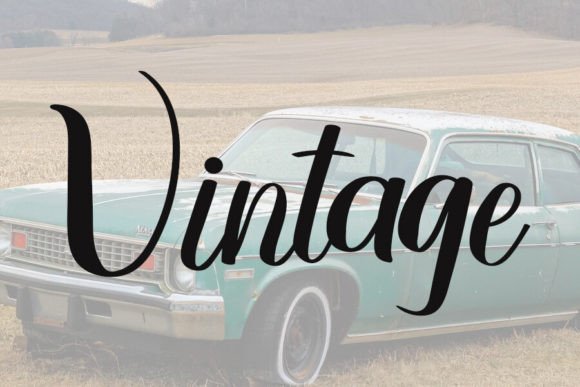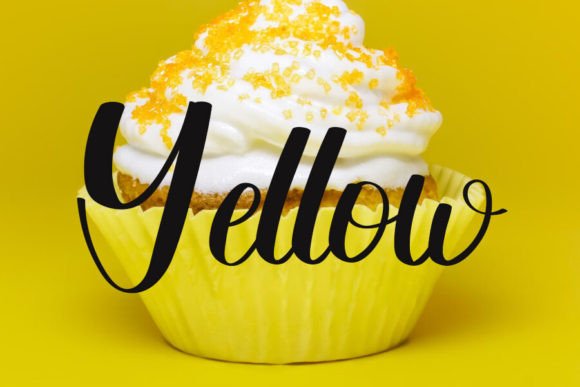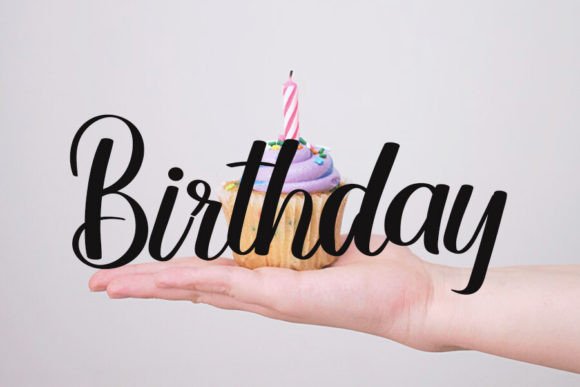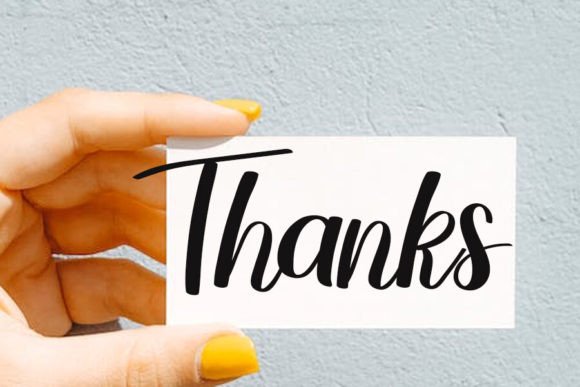
Introducing Cramble Font: Elevate Your Designs with a Fresh and Beautiful Typeface
In the world of design, the right font can make all the difference. It can elevate your project from ordinary to extraordinary, convey the perfect tone, and leave a lasting impression on your audience. If you’re a designer, crafter, or business owner looking for a font that can help you stand out, look no further than Cramble Font. This fresh and beautiful font is perfect for a wide range of design purposes, from YouTube banners and cover logo mockups to wedding invitations, ID cards, flyers, and crafts.
What Makes Cramble Font Special?
Cramble Font is a simple yet unique typeface that is sure to capture the attention of your audience. Its clean lines, elegant curves, and balanced proportions make it a versatile font that can be used in a variety of contexts. Whether you’re designing a logo, creating a social media graphic, or crafting a wedding invitation, Cramble Font is the perfect choice. Its beauty lies in its simplicity, making it easy to read and understand, even at small sizes.
Why Choose Cramble Font for Your Designs?
There are many reasons why Cramble Font stands out from the crowd. Here are just a few:
- Fresh and Beautiful Design: Cramble Font has a modern and elegant design that will give your projects a professional and polished look.
- Versatile: This font can be used for a wide range of design purposes, from digital graphics to print materials.
- Simple and Unique: Cramble Font’s simplicity makes it easy to read and understand, while its uniqueness sets it apart from more common fonts.
Cramble Font is a dream come true for designers and crafters. Its versatility and beauty make it perfect for a wide range of projects, including:
- YouTube Banners: Create eye-catching banners that showcase your brand’s personality and style.
- Cover Logo Mockups: Design stunning logo mockups that will help your clients visualize their brand’s identity.
- Wedding Invitations: Create beautiful and elegant wedding invitations that set the tone for the big day.
- ID Cards: Design professional and secure ID cards that are perfect for businesses, events, or organizations.
- Flyers: Create eye-catching flyers that promote your business, event, or cause.
- Crafts: Use Cramble Font to add a personal touch to your crafts, such as handmade cards, gift tags, or scrapbooking projects.
Take Your Business to the Next Level
By using Cramble Font in your designs, you can take your business to the next level. This font can help you:
- Stand Out: Cramble Font’s uniqueness will help your designs stand out from the competition.
- Build Your Brand: Use this font consistently across your designs to build a strong brand identity.
- Attract Your Audience: Cramble Font’s beauty and elegance will attract your audience’s attention and leave a lasting impression.
In conclusion, Cramble Font is a fresh and beautiful font that is perfect for designers, crafters, and business owners looking to elevate their designs. Its simplicity, uniqueness, and versatility make it a valuable asset for any design project. Whether you’re creating digital graphics, print materials, or crafts, Cramble Font is the perfect choice. So why wait? Download Cramble Font today and take your designs to the next level!